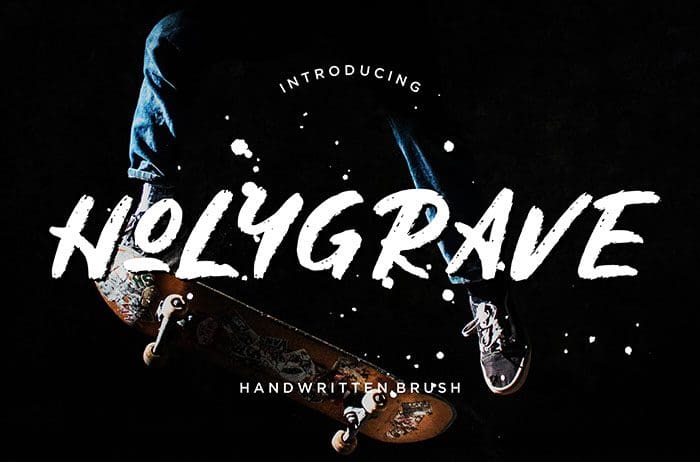
Holygrave Brush Font
Holygrave is a handwritten Brush Font with natural movement scratch. Holygrave is perfect for branding projects, logo, advertisements, and many more. Thanks to Creatype Studio for sharing this font! Take a look at this portfolio for more of his stunning fonts.